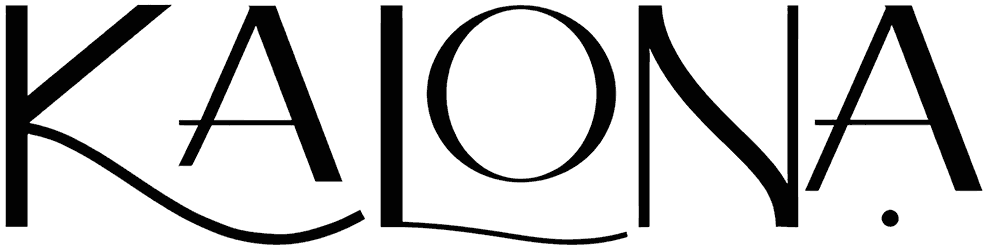
Kalona Font
When it comes to sans serif fonts, the Kalona would be figurative for a minimal design to stand standout. The luxury sans serif font with two styles of uppercase letters, while leaving out the lowercase letters, numbers, and punctuation, provides the opportunity to be used in business cards, logos, and branding that requires elegance and modernity.